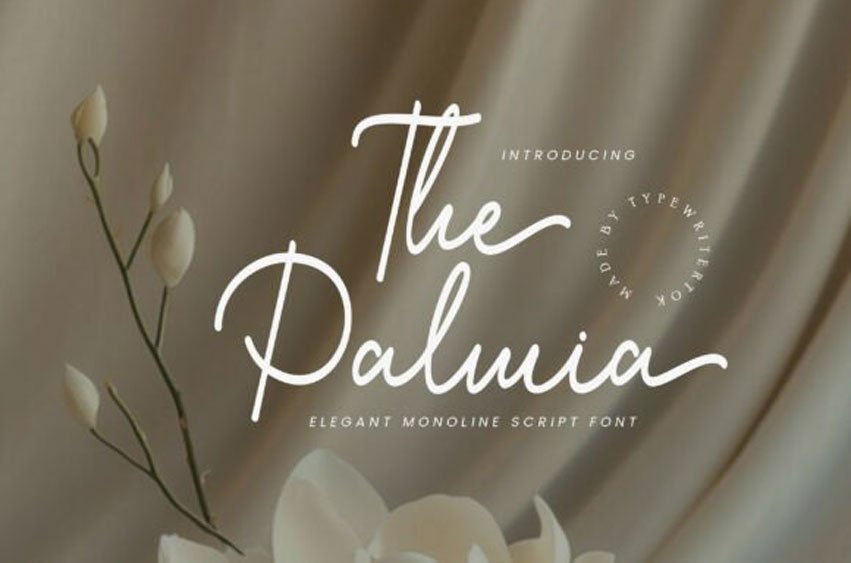
The Palmia Font
The Palmia Font is a graceful monoline script font designed to bring a touch of elegance and warmth to your projects.
With flowing strokes and a gentle rhythm, Palmia is perfect for wedding invitations, feminine branding, skincare, and boutique logos, social media graphics, and any design needing a soft, handwritten touch.
Its refined curves offer a natural handwriting feel that remains legible and stylish, making it versatile for both print and digital applications. The Palmia exudes charm, simplicity, and sophistication all in one stroke.